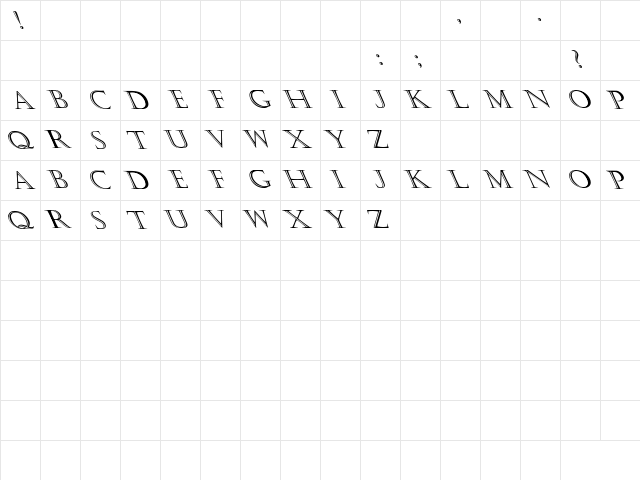
Kastellar Leftie Regular
Design Context for Kastellar Leftie
Kastellar Leftie is a composed and adaptable typeface that performs quietly and consistently across a wide range of design contexts.